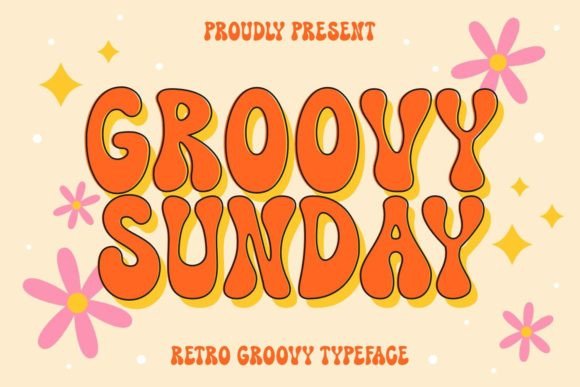
Step into the captivating world of Groovy Sunday, a display font that embodies the spirit of the psychedelic 70s. With its funky, curved letters and bold serifs, this font oozes groovy vibes, making it the perfect choice for designers seeking a retro and energetic aesthetic.
With Groovy Sunday, your designs will dance to the rhythm of nostalgia. Imagine your posters, music covers, and other creations pulsating with vibrant energy, transporting your audience back to an era of bell bottoms and lava lamps. Whether you're a seasoned designer or just starting out, Groovy Sunday is the ultimate tool to add a touch of fun and excitement to your projects.
Immerse yourself in the groovy wonderland of Groovy Sunday. Its playful curves and bold strokes demand attention, making your designs impossible to ignore. Unleash your creativity and let the font's energy flow through your work, resulting in captivating visuals that resonate with your audience.
Groovy Sunday is the ultimate font for designers who dare to be different. Its unique style reflects the spirit of the 70s, creating a sense of nostalgia and excitement. Whether you're working on a poster, music cover, or any other design project, this font will add a touch of groovy magic that will leave your audience spellbound.
Don't miss out on the opportunity to elevate your designs with Groovy Sunday. Embrace the psychedelic spirit and let the font's energy ignite your creativity. Experience the groovy revolution and make your designs stand out from the crowd.